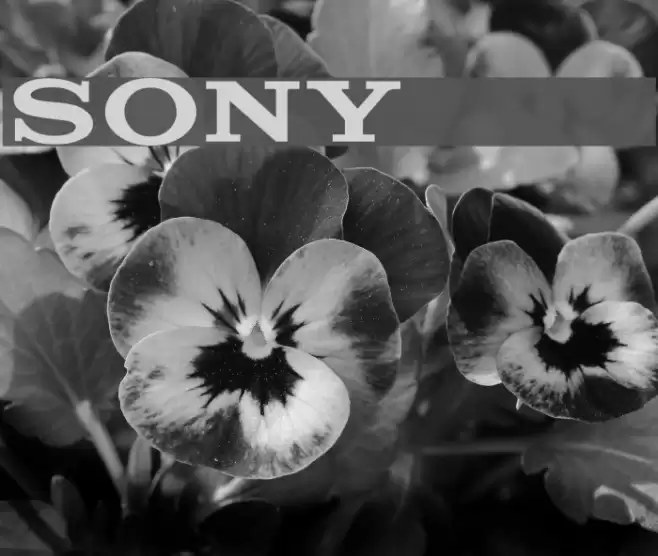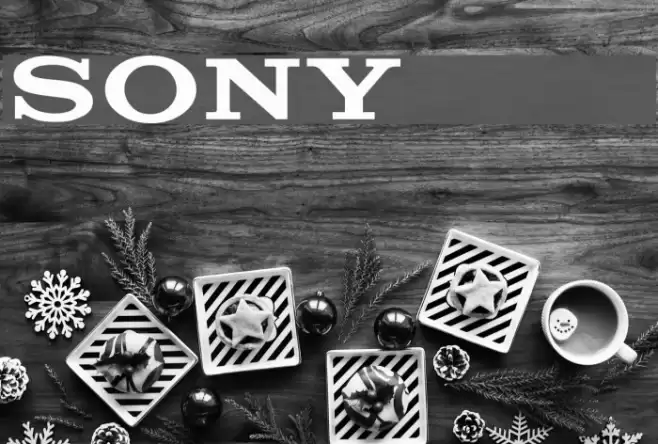
SONY's Logo Font
SONY's Logo Description
A geometric, bold serif typeface with strong vertical and horizontal strokes, prominent serifs, and high contrast between thick and thin lines. The letterforms are wide and evenly spaced, giving a sense of stability and authority.
A bold, geometric serif font with high contrast and wide proportions from Uncategorized fonts.
- Proposed Projects: Corporate branding, luxury product logos, editorial headlines, signage.
- Width: Expanded
- Overall Style: Classic, Corporate
- Use Case: Logos, Headlines, Branding